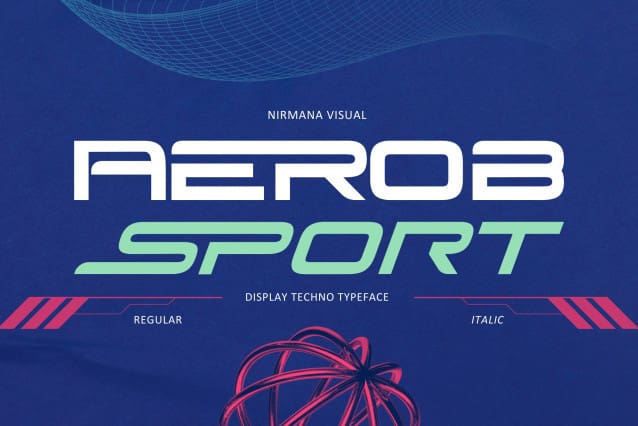
Aerob Sport Font
Aerob Sport Font offers beautiful typographic harmony for a diversity of design projects, including logos & branding, social media posts, advertisements & product designs.